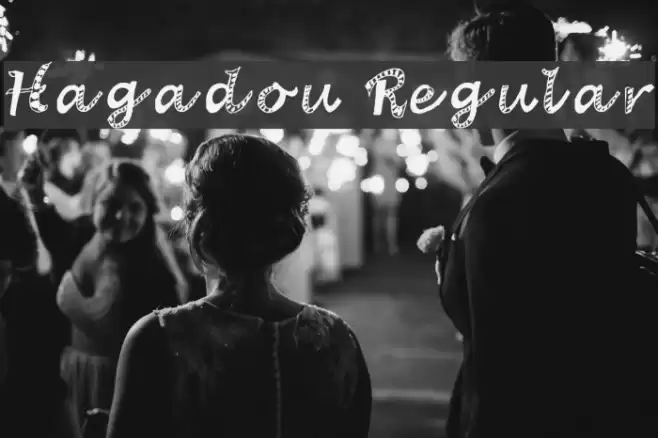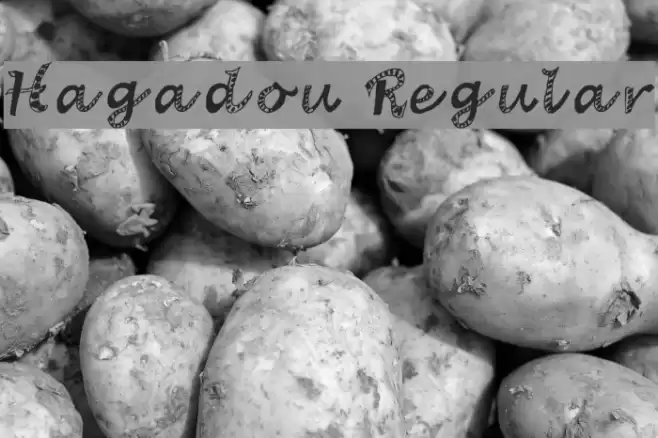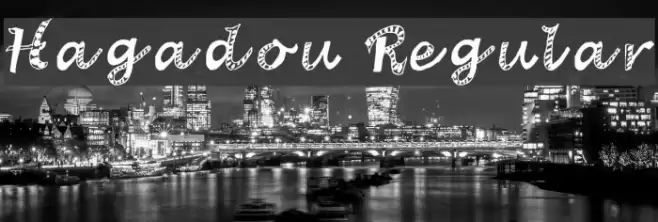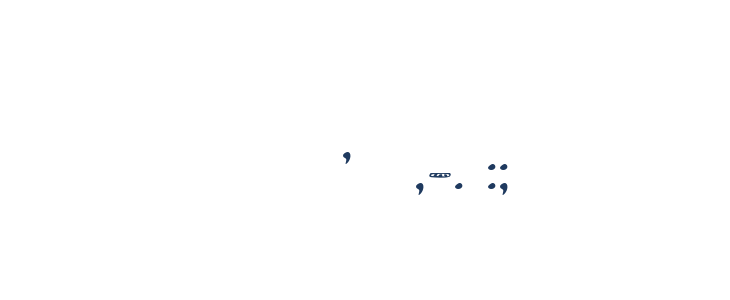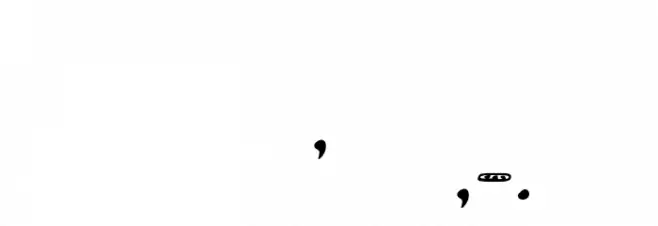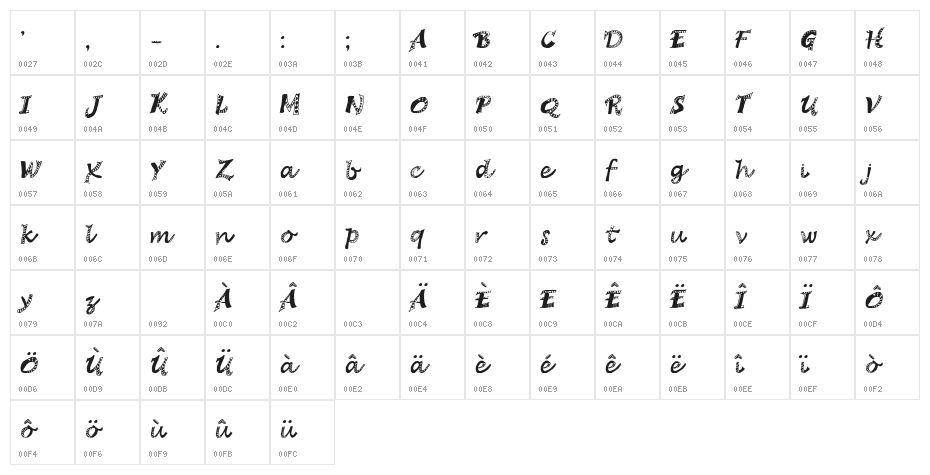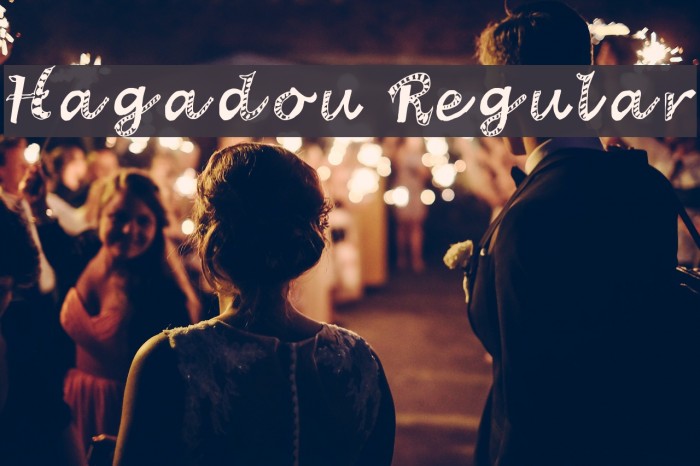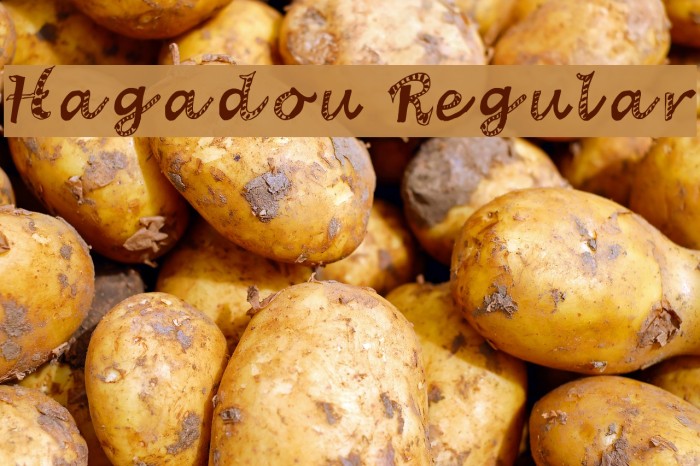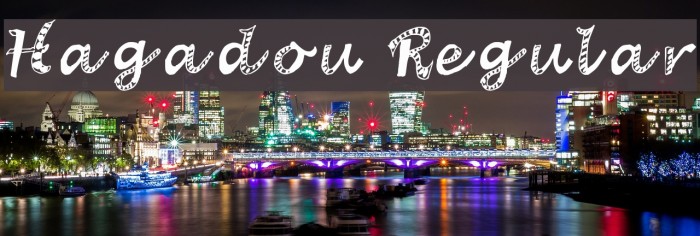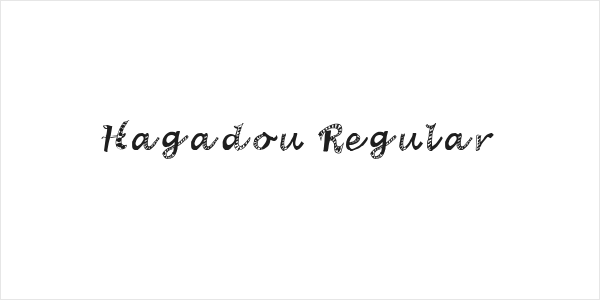
Hagadou Regular Font
Hagadou Regular Description
This font features a playful and decorative style with a unique pattern inside each character, resembling hand-drawn textures. The letters are bold and have a whimsical appearance, making them stand out with their artistic flair. The uppercase and lowercase letters maintain a consistent style, with a slightly slanted orientation that adds to the dynamic feel. The numbers and special characters follow the same decorative theme, ensuring a cohesive look across all elements. This font is ideal for creative projects that require a touch of fun and individuality.
A playful, decorative font with hand-drawn textures and a whimsical style from Decorative fonts.
- Proposed Projects: Ideal for children's book covers, playful branding, greeting cards, and creative posters.